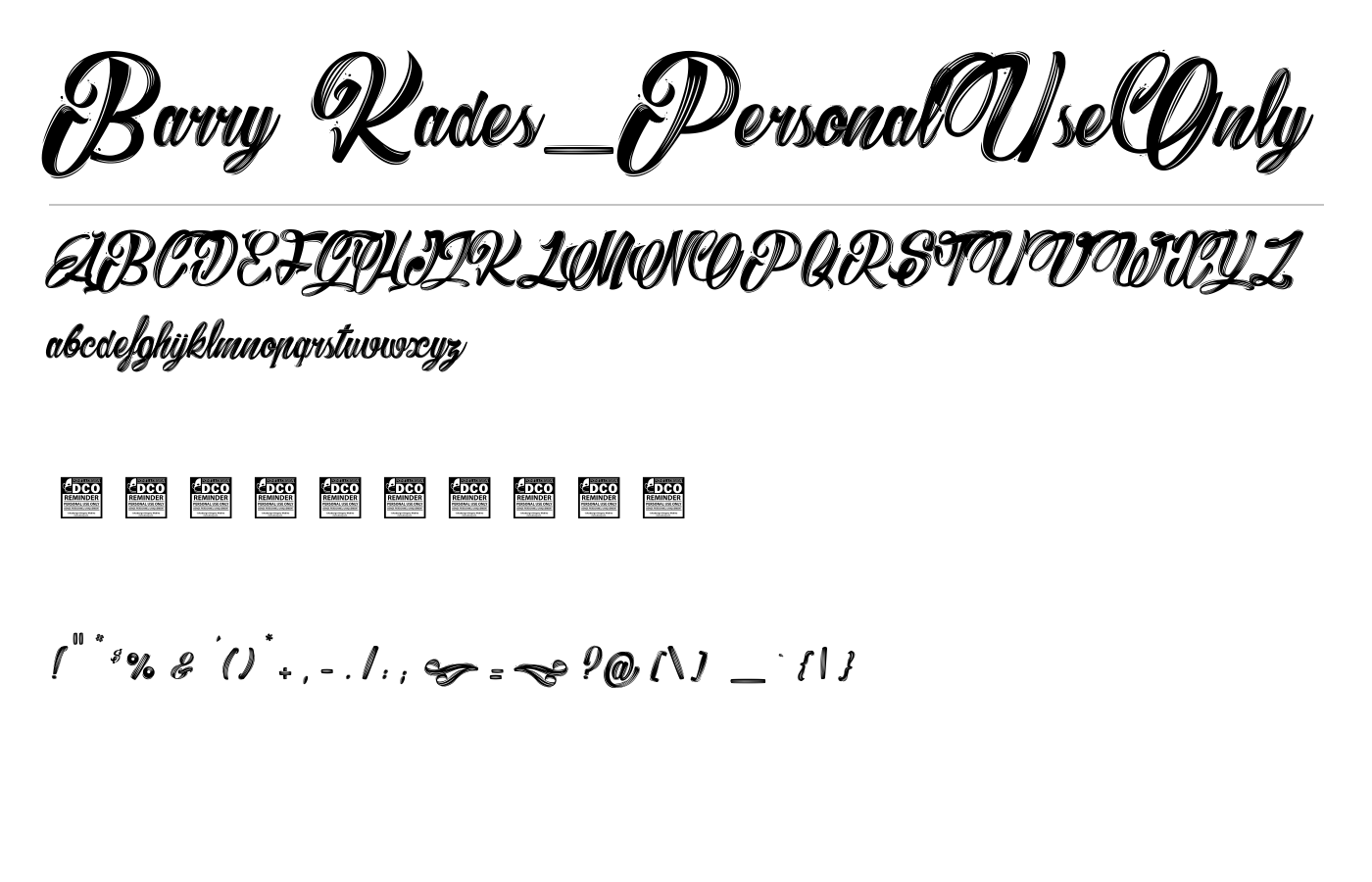
Barry Kades_PersonalUseOnly is an elegant script font with a bold, flowing style that combines thick and thin strokes to create a dynamic and sophisticated look. Its ornate letterforms and high-contrast strokes give it a classic yet playful personality, making it ideal for luxury branding, invitations, and logos that aim to stand out with a chic, handcrafted feel. This font works best in display uses where its decorative and expressive nature can shine, such as in headlines, packaging, and stylish editorial designs.
Barry Kades_PersonalUseOnly Font
About Barry Kades_PersonalUseOnly Font